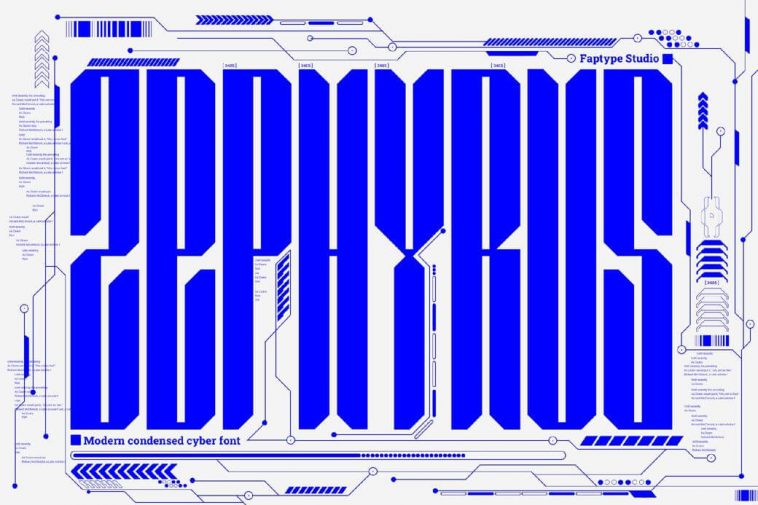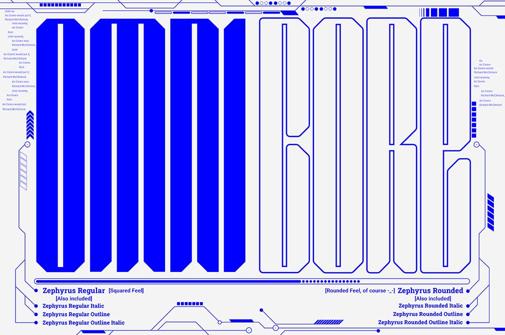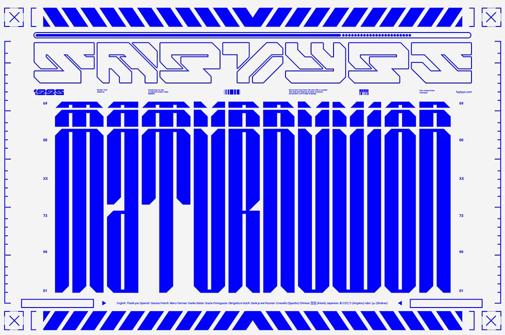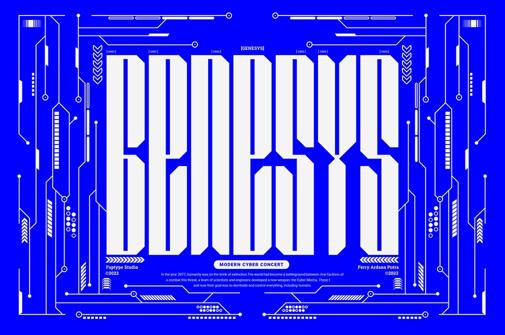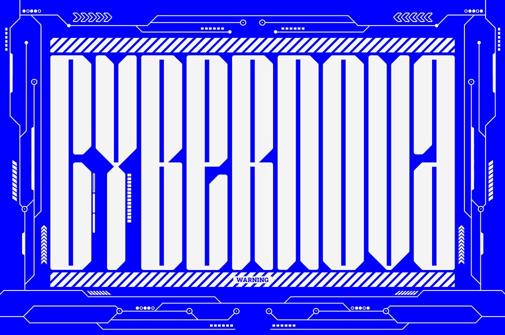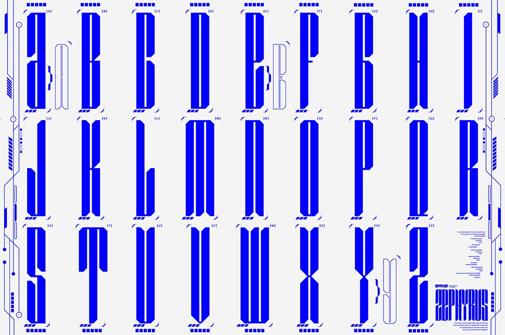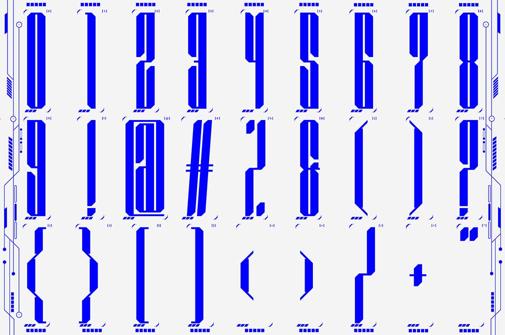
Zephyrus — Modern Condensed Free Font
Zephyrus — Modern Condensed Font
Today’s font freebie is Zephyrus — a captivating, modern condensed font perfect for retrofuturistic designs. With a full set of uppercase characters, numbers, and punctuation, along with multilingual support, Zephyrus is a versatile addition to your design toolbox. Elevate your projects with this cyber-style font, ideal for sci-fi posters, covers, and any artwork inspired by the vibrant aesthetics of the 90s. Download Zephyrus today and infuse your designs with a touch of contemporary flair.